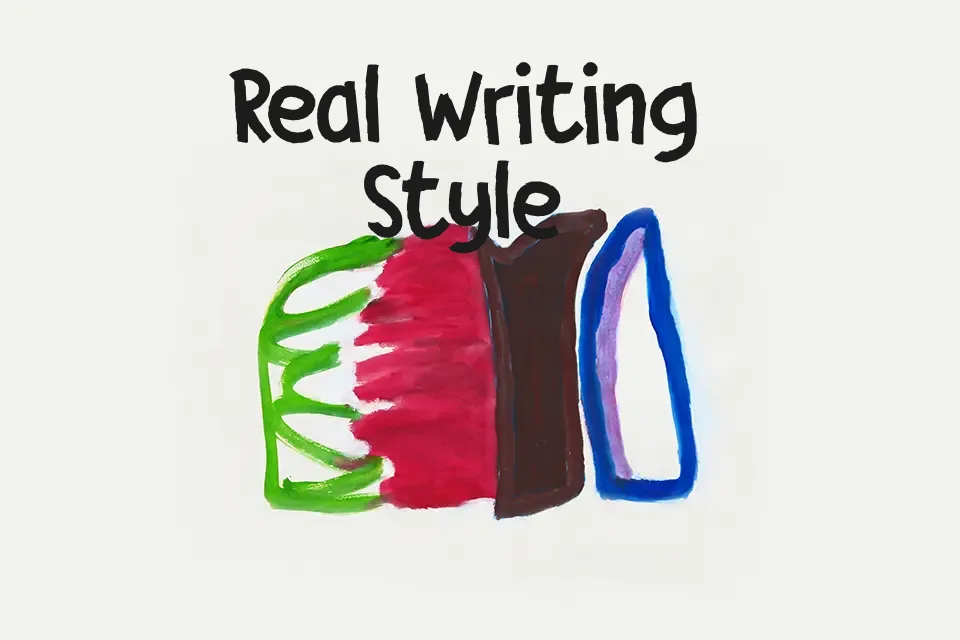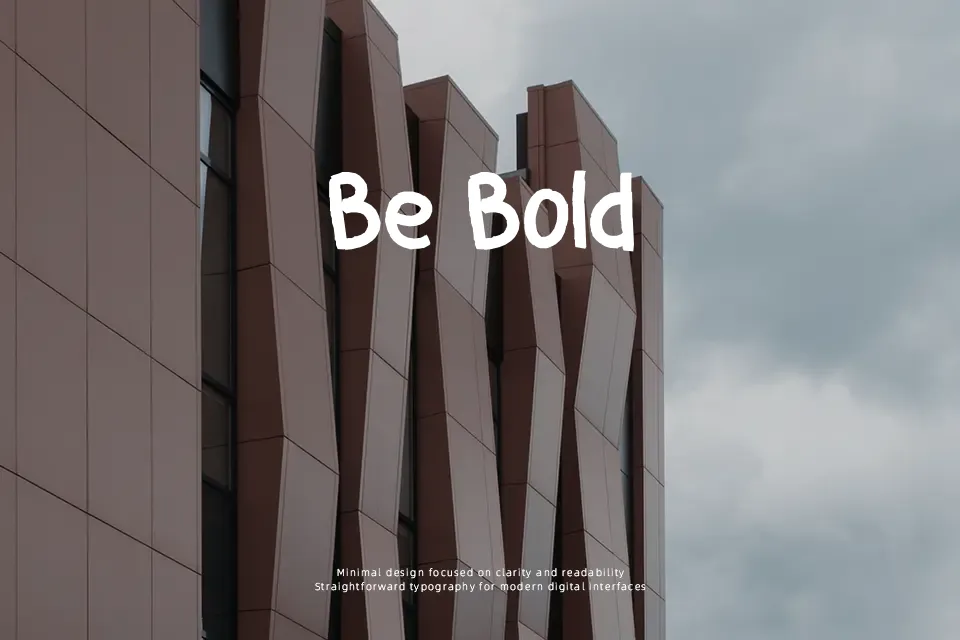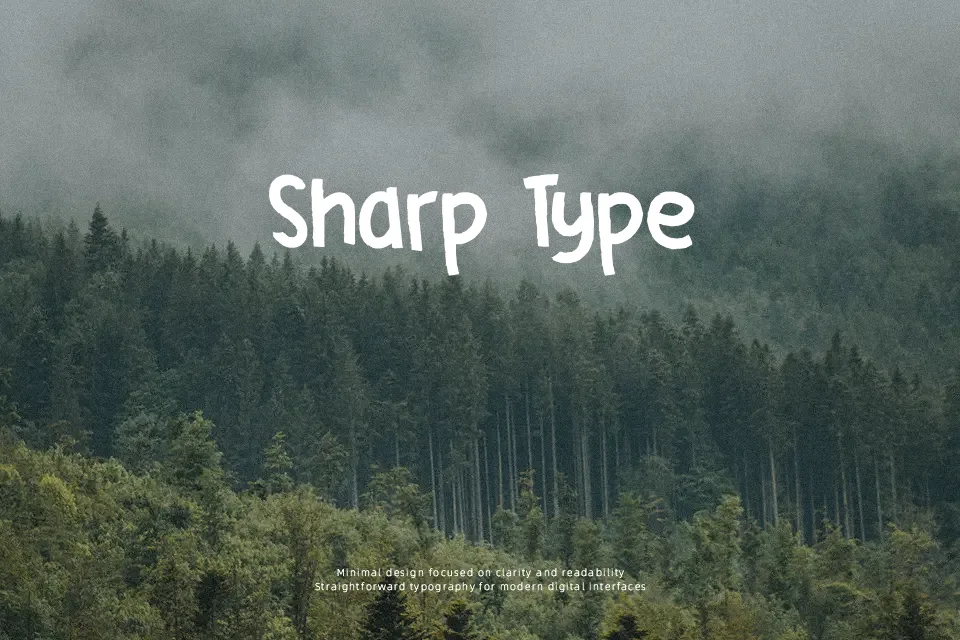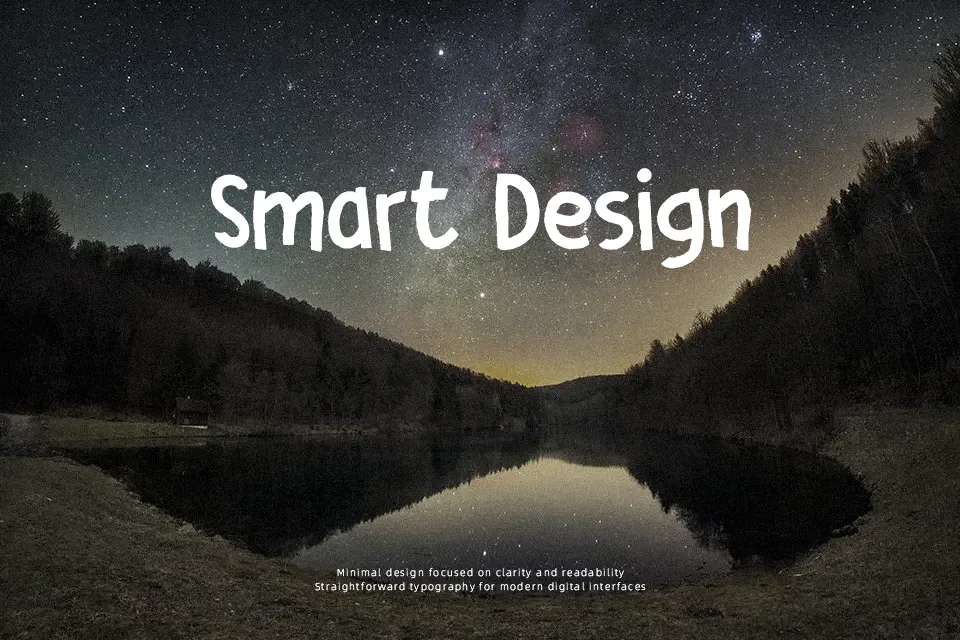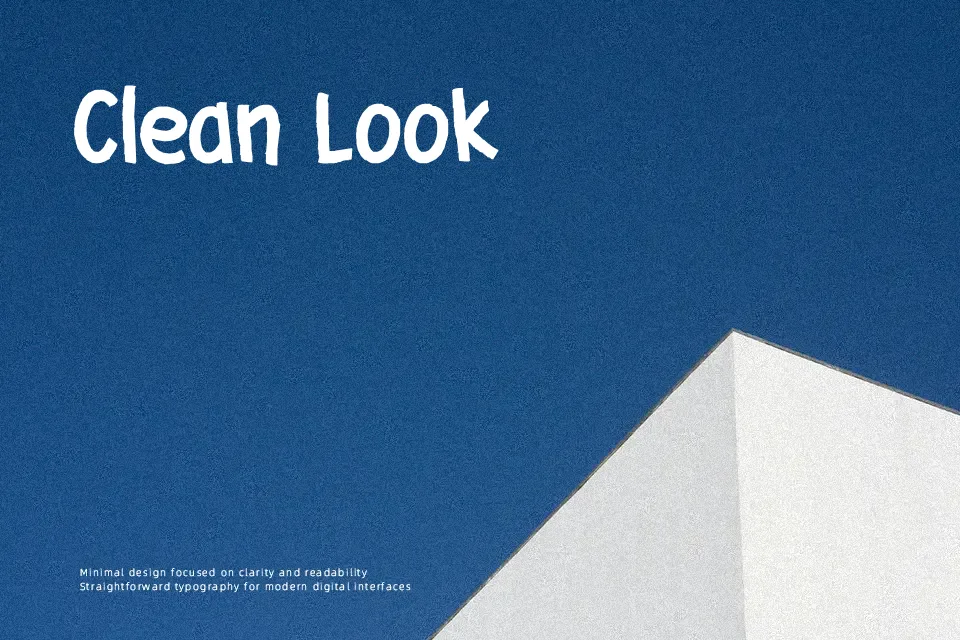
DK Cover Up Font
Designed by Hanoded
DK Cover Up Font has thick, uneven strokes, rounded corners, and a loose handmade structure that gives headlines an improvised, cut-paper feel. The spacing is casual rather than tidy, so it carries more personality than control. It works nicely on party flyers, snack packaging, classroom posters, and seasonal graphics where you want something playful but not sugary. The texture keeps short words lively, especially at medium to large sizes. It is less convincing in formal branding, dense editorial layouts, or interface text, where the bouncy shapes and irregular rhythm can start to feel noisy.